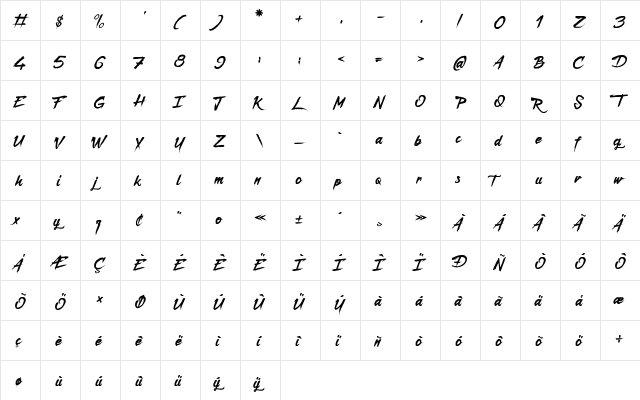
Captain Redemption Regular
| Foundry | Octotype |
| Designer | Octotype |
Design Context for Captain Redemption Typeface
Captain Redemption is a composed and adaptable typeface that performs quietly and consistently across a wide range of design contexts.